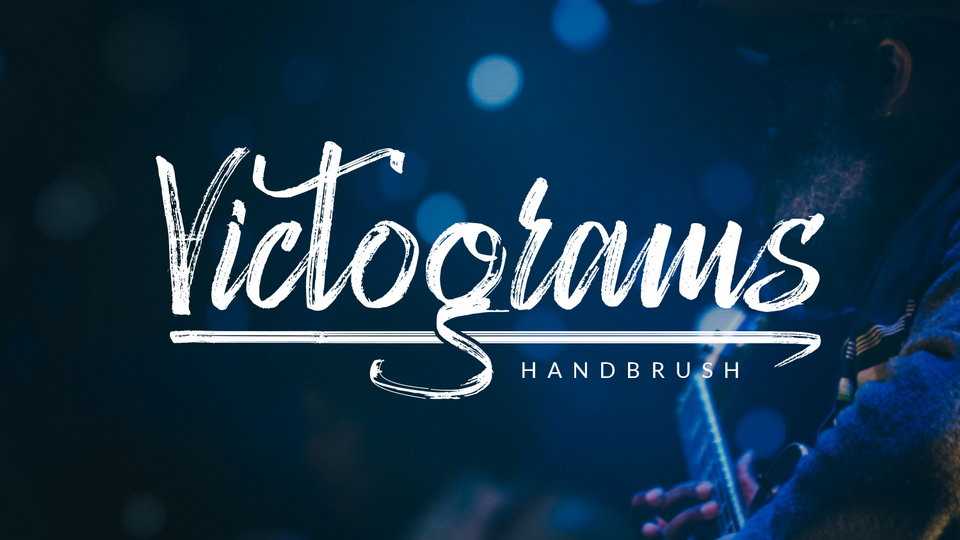
Download Victograms font, a luxury handbrush typeface with natural textured look. Victograms font will be suitable for any projects such as branding, merchandise and all your other lovely projects that need beautiful handwriting taste.